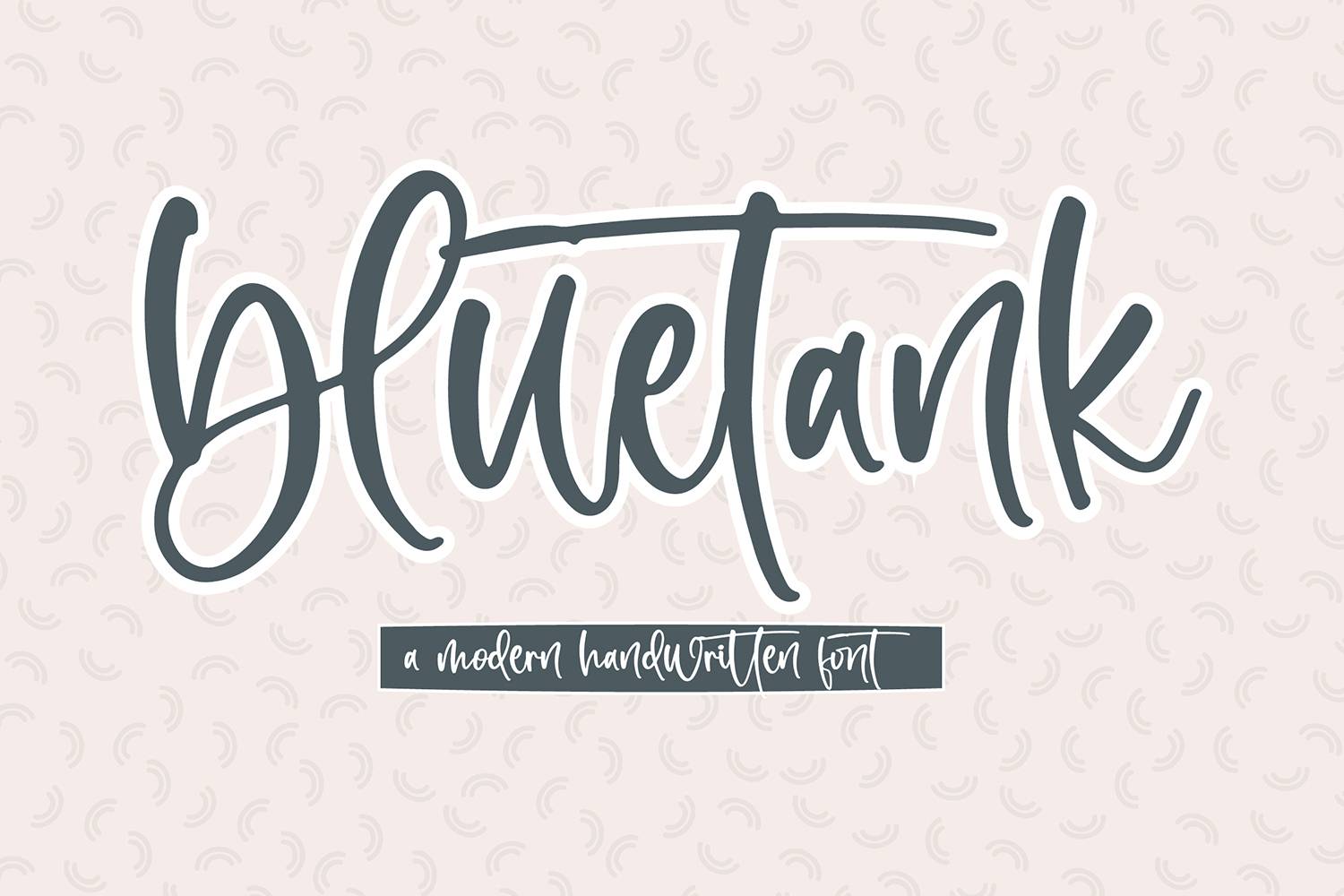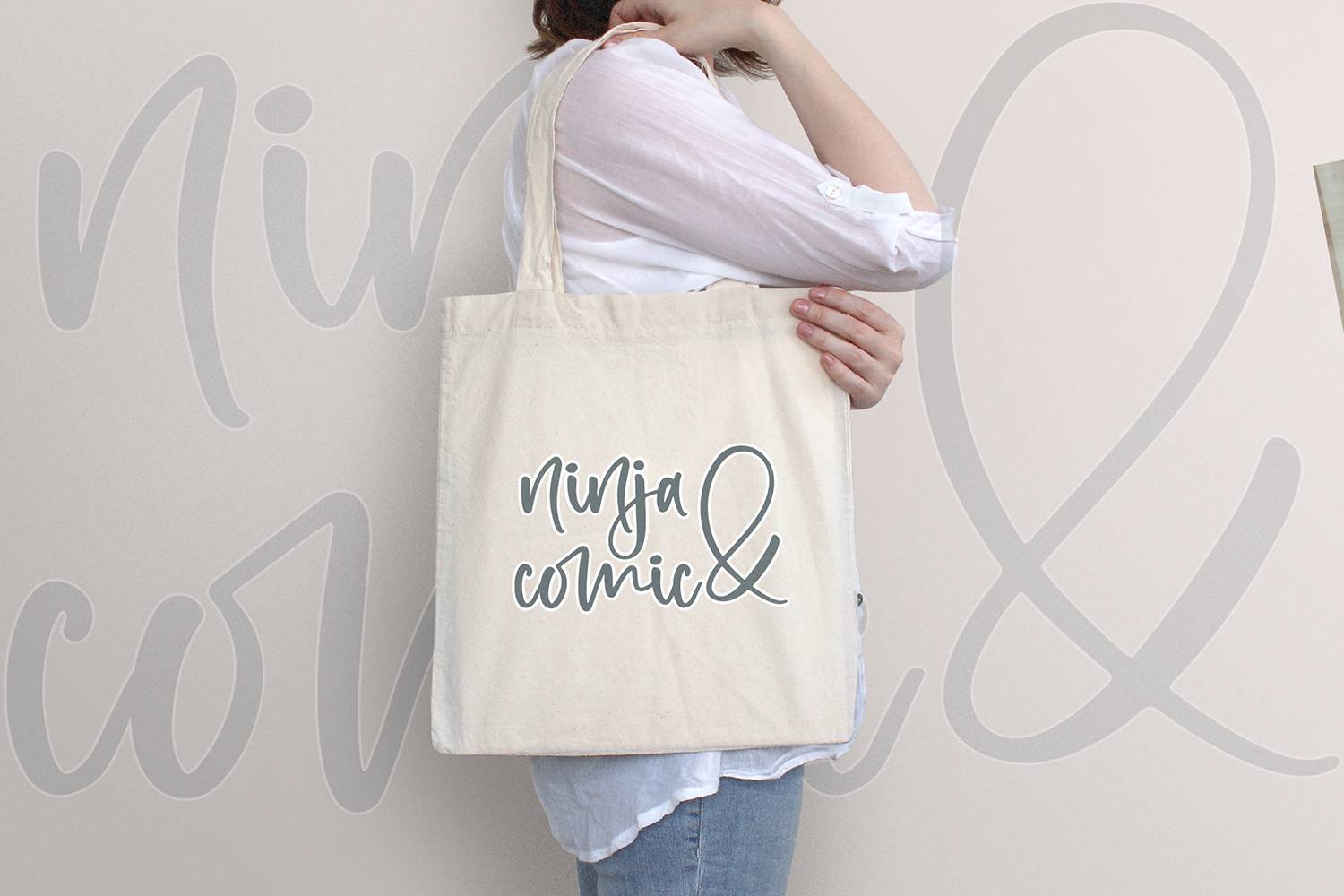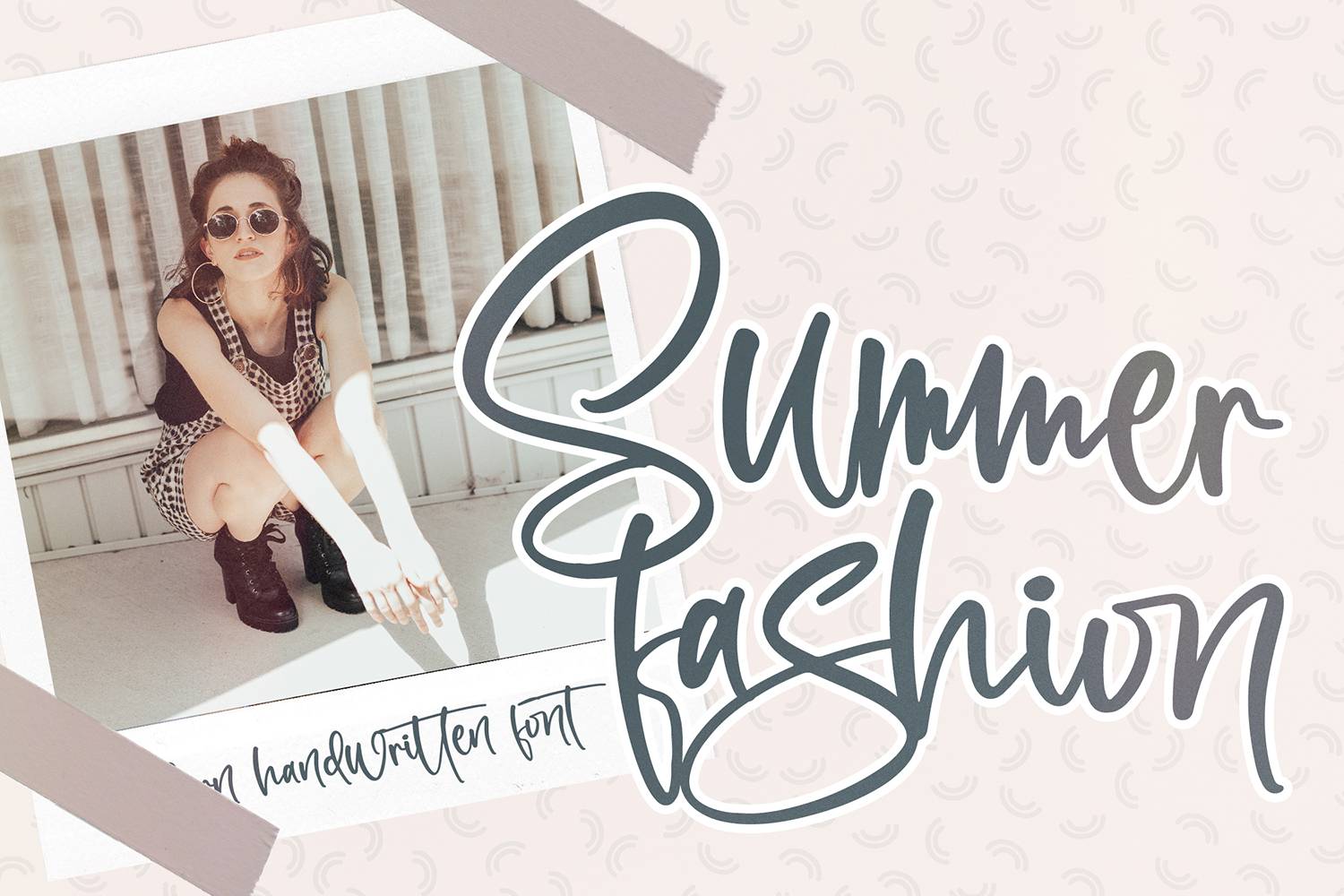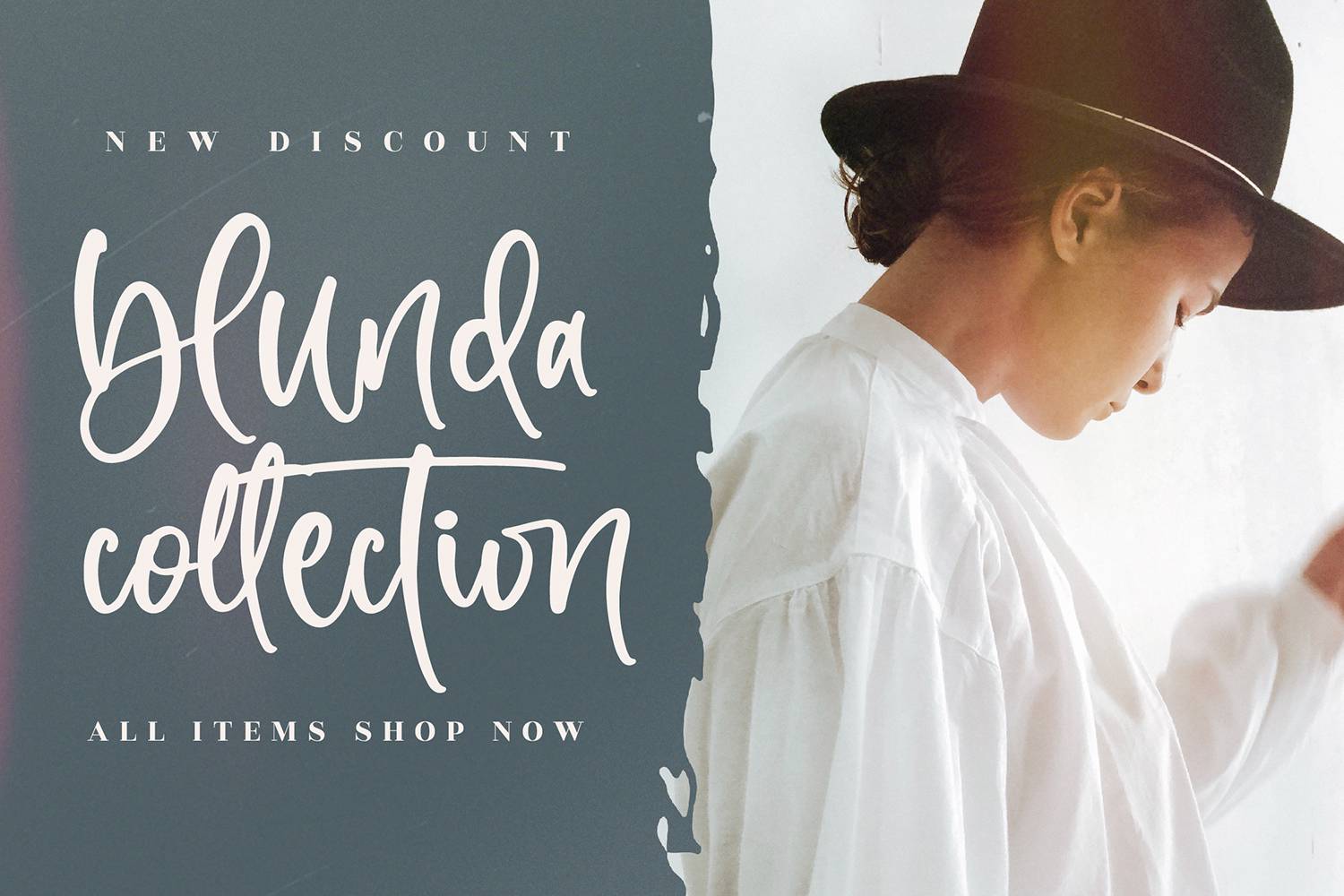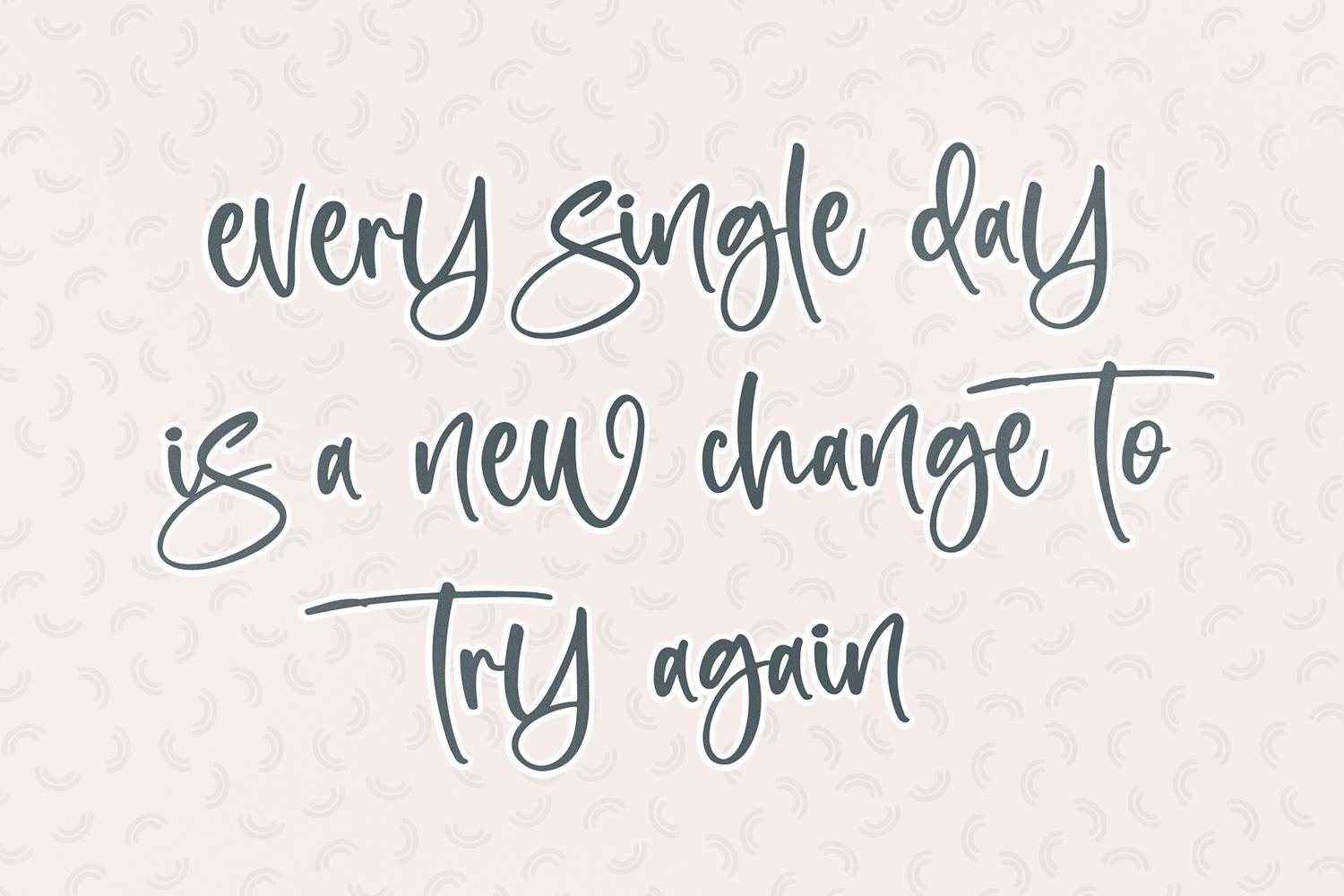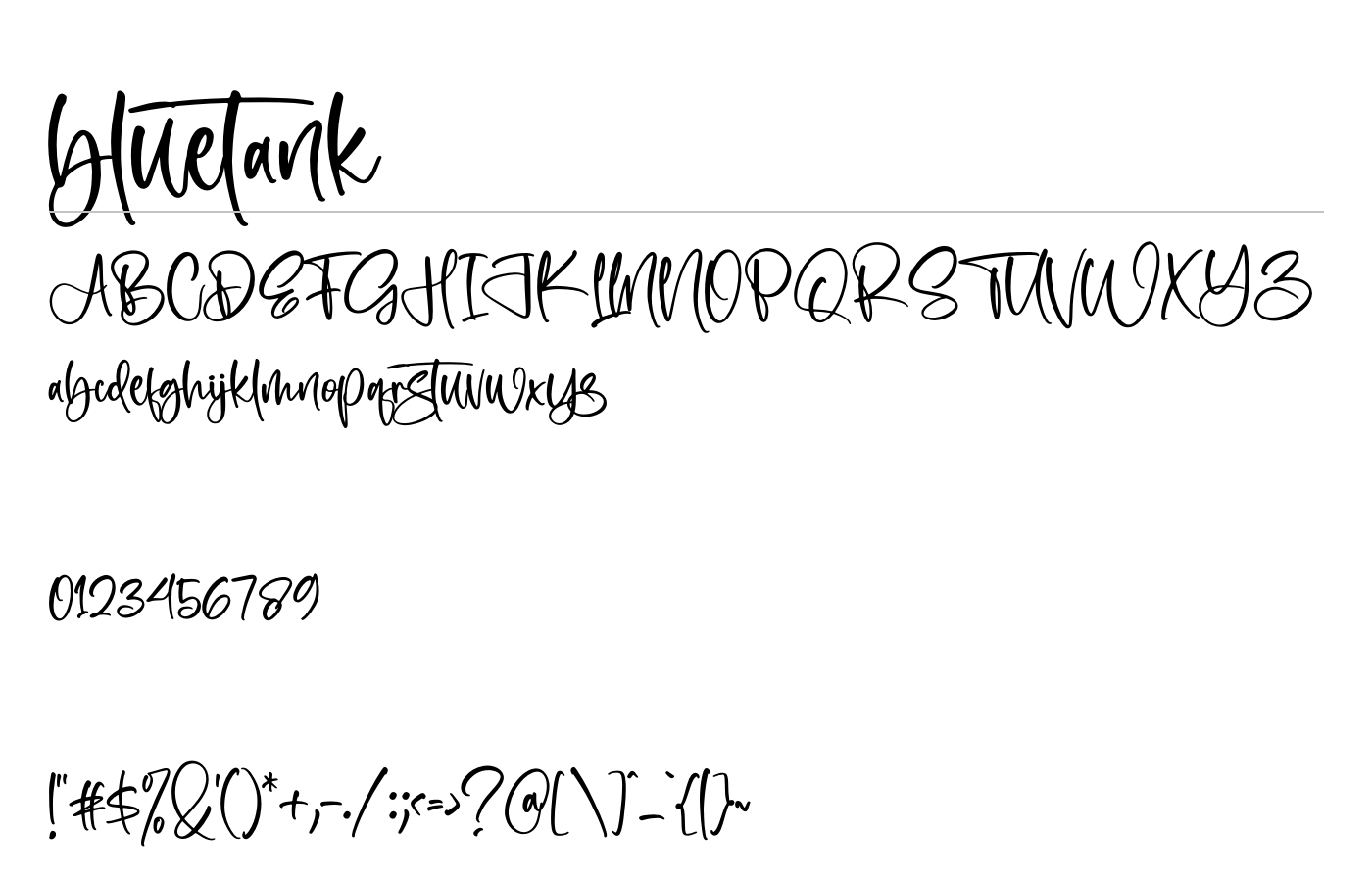
Bluetank is a lively, handwritten script font with a casual, slightly messy style that feels personal and creative. Its tall, narrow letterforms with varied stroke thicknesses and playful loops give it a dynamic, energetic vibe, making it great for branding, logos, social media, and designs needing a friendly, artistic touch. This font works well where a unique, approachable personality is desired, especially in informal or creative projects.
Bluetank Font
About Bluetank Font
| Font family | Bluetank Font |